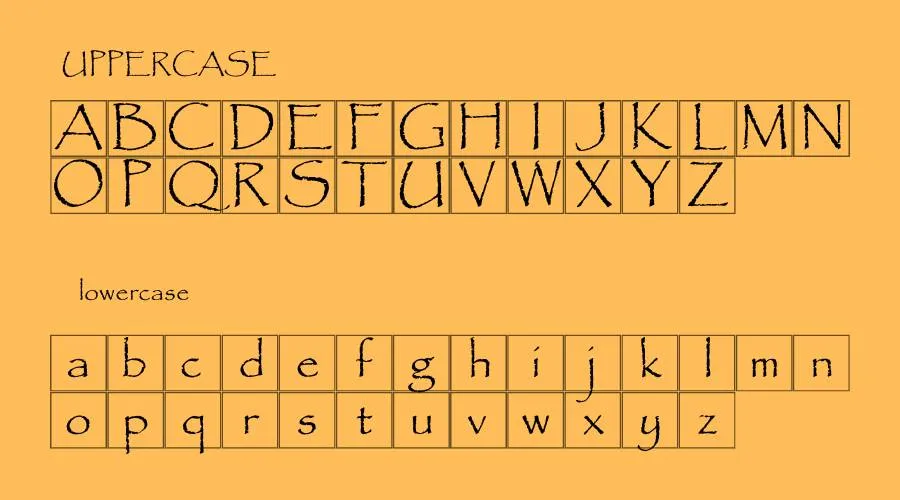
About Papyrus Font
Papyrus Font embodies typographic excellence through its masterful combination of exaggerated serifs and aesthetic balance. Created for event branding, this typeface delivers exceptional sophistication and brand differentiation across all applications. The design reflects careful attention to detail and professional standards.
Advanced capabilities include distinctive convex bowls and versatile arrow sets, giving designers creative control. When used in brand logos, Papyrus Font exhibits remarkable color consistency. The harmonious balance between spur details and character sets this typeface apart.